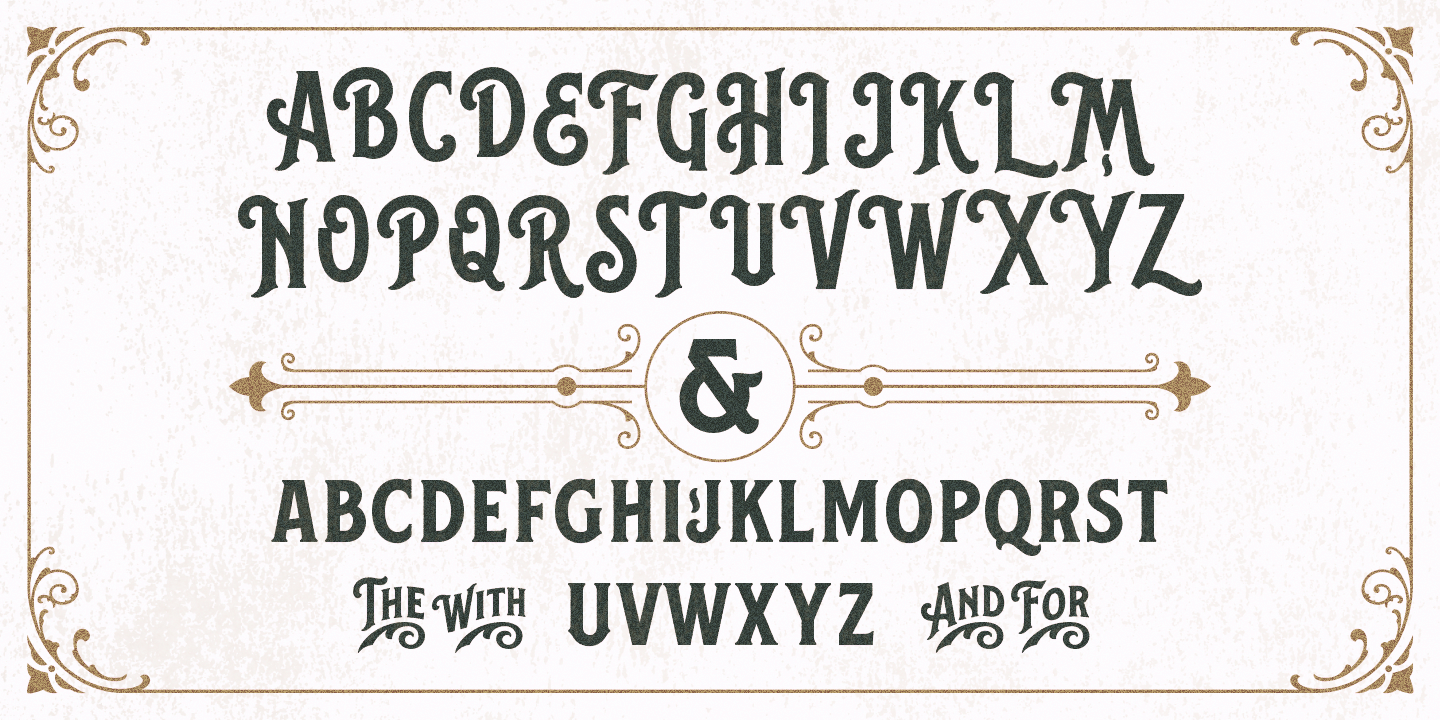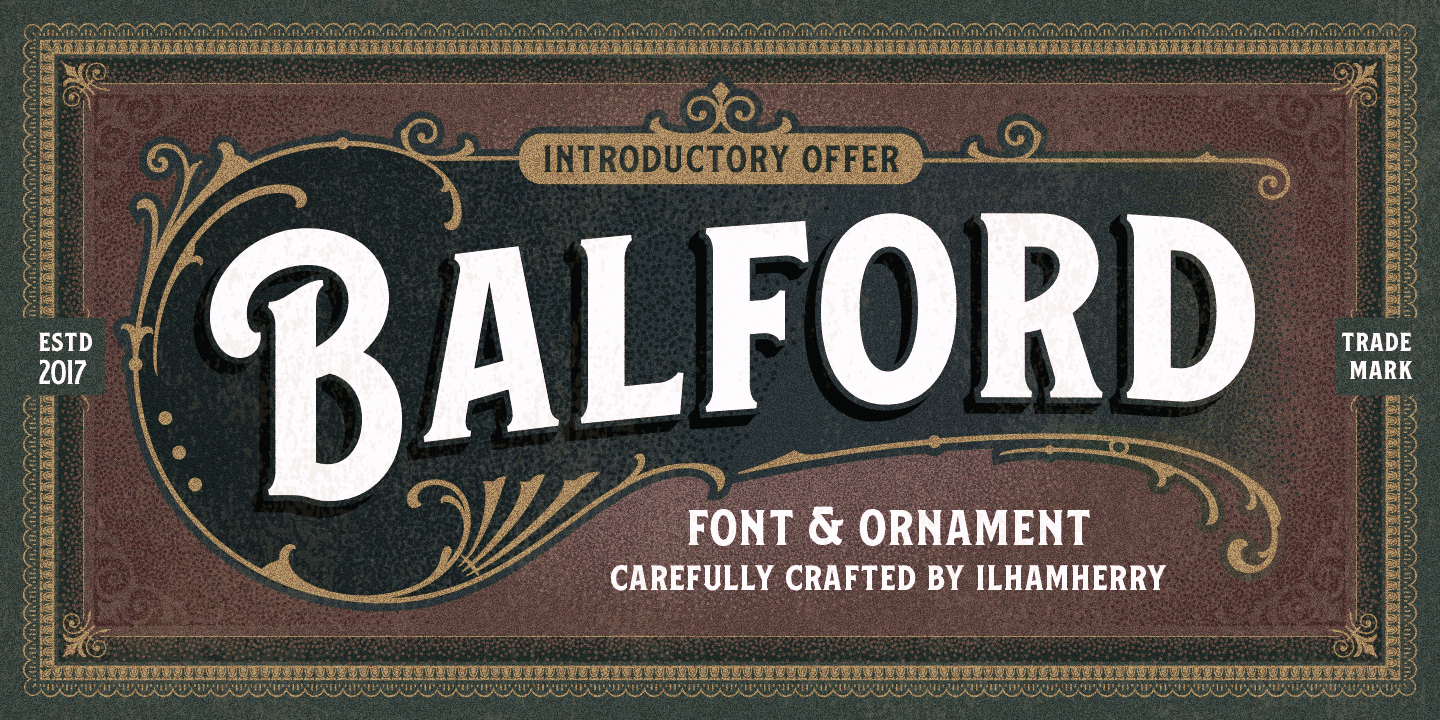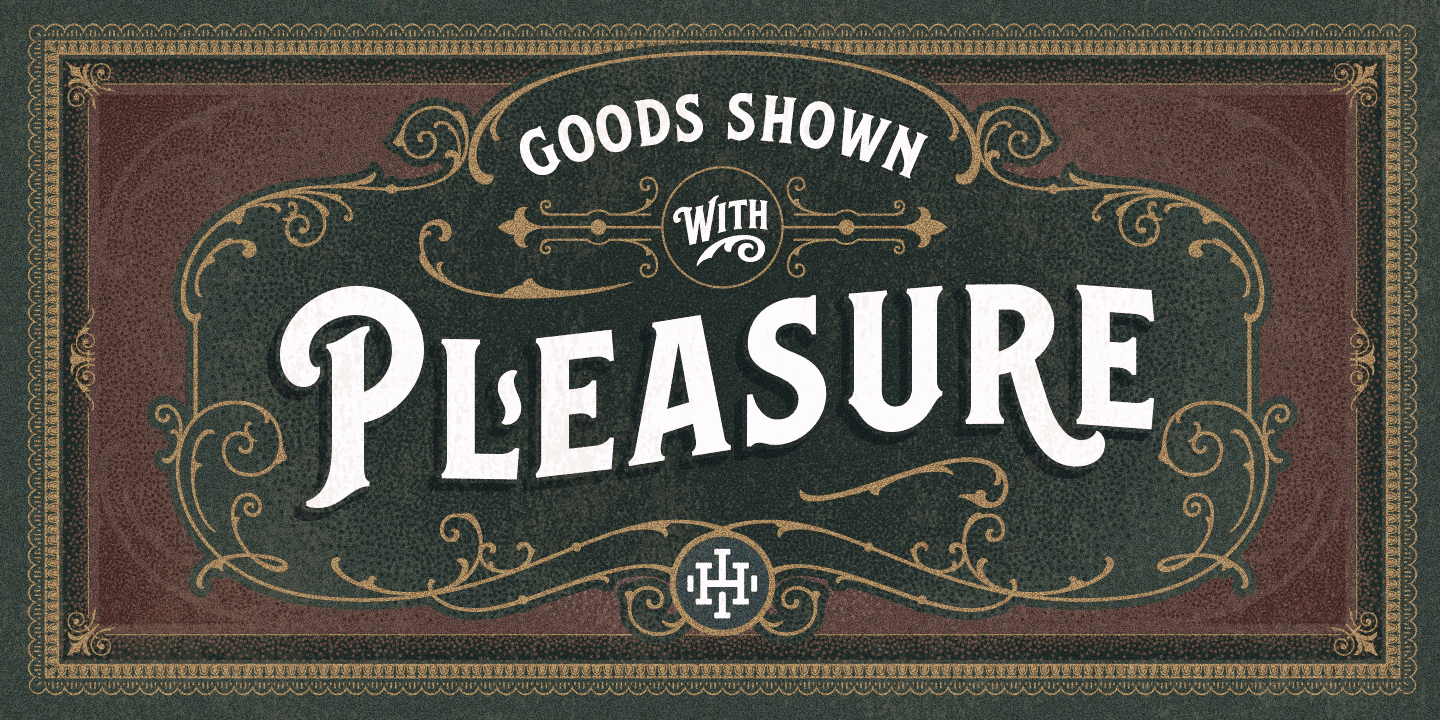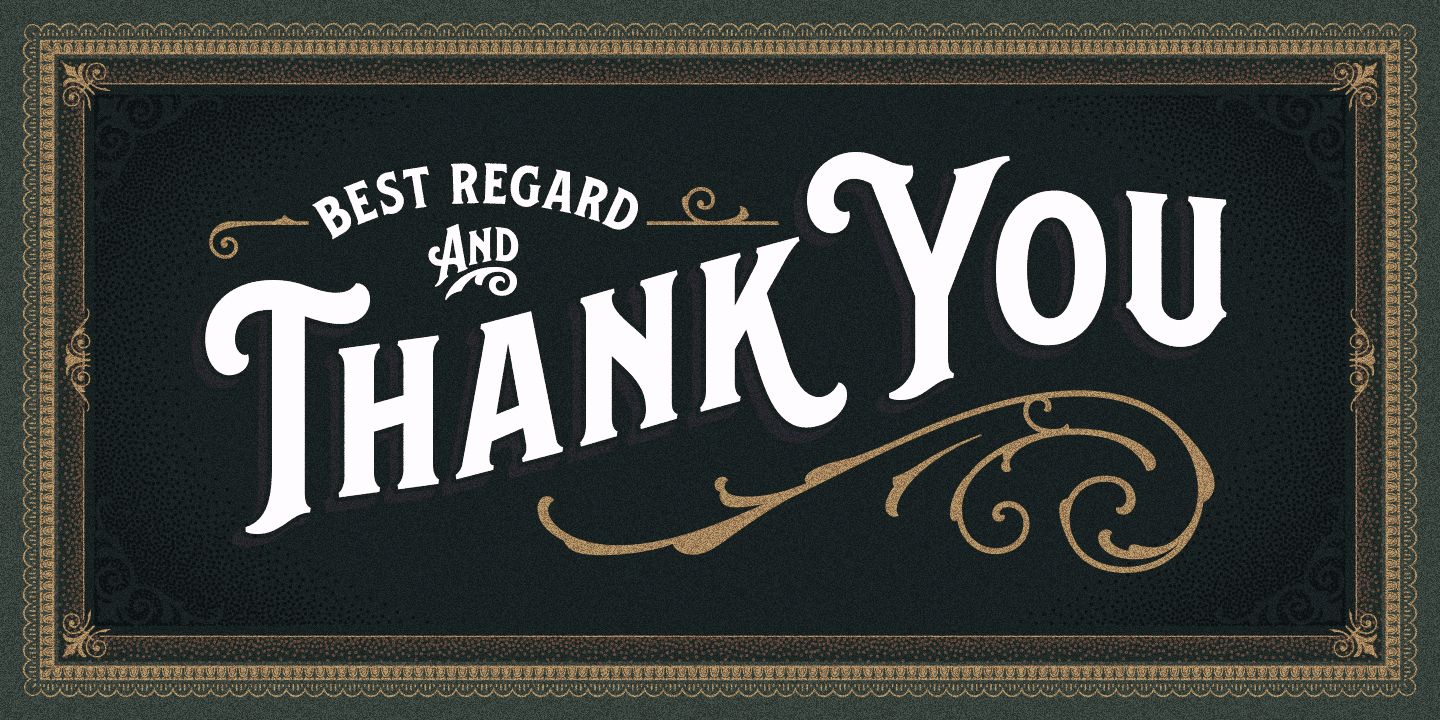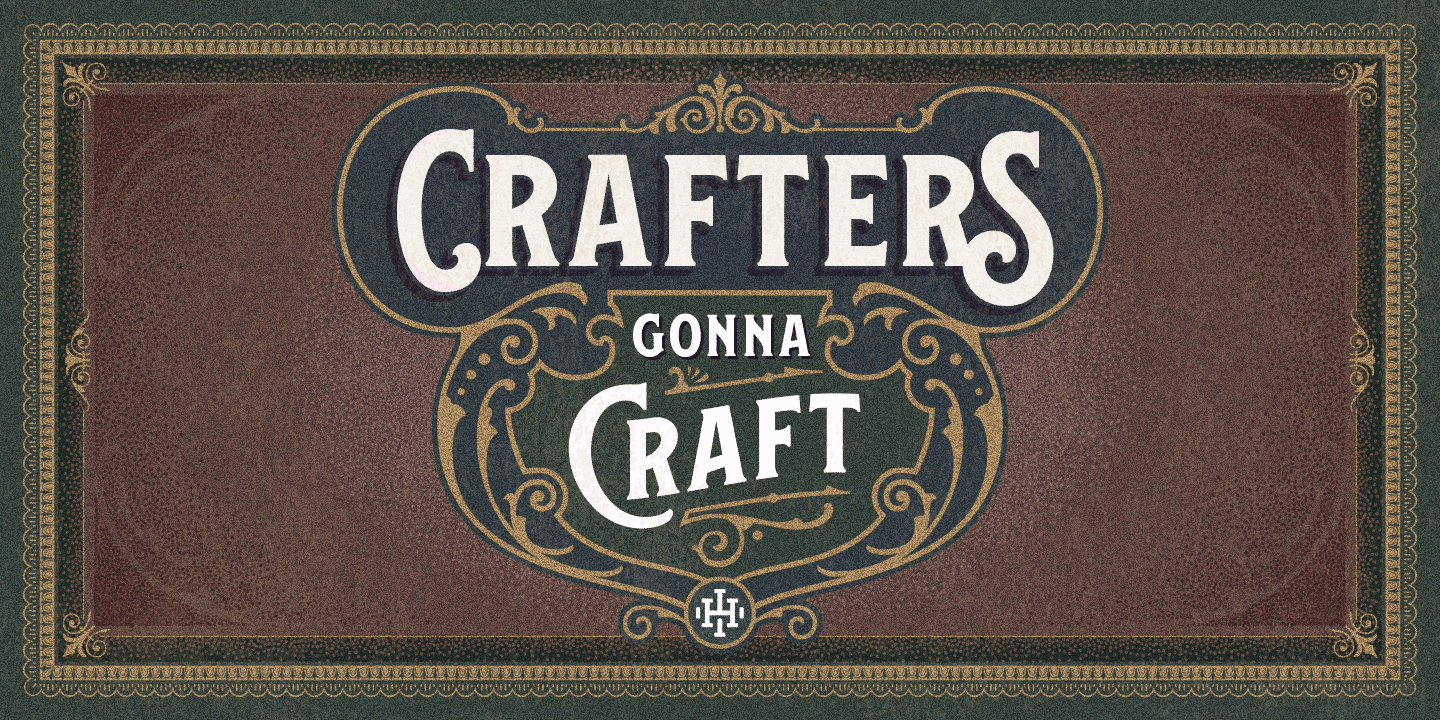
A new vintage font family and ornament called Balford. inspired from vintage labels,and packages. this collection of styles with shadow of typeface dan vintage scrolls, panels, and ornament possible to combination and option to create label designs, headlines, logotypes, signage, posters, greeting cards, letterhead, t-shirt and many more application.​​​​​​​